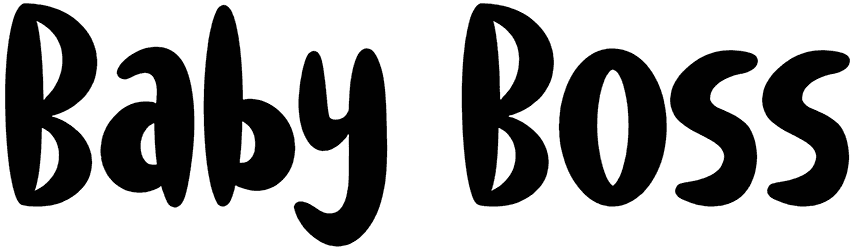
Baby Boss Font
When you are working on a cute design, like a baby shower invitation card, choosing a natural and playful baby font like this one would be a nice decision. The Baby Boss font has full support for characters that have a soft and appealing visual. Test this script font for your next creative layout and hook a lot of viewers.